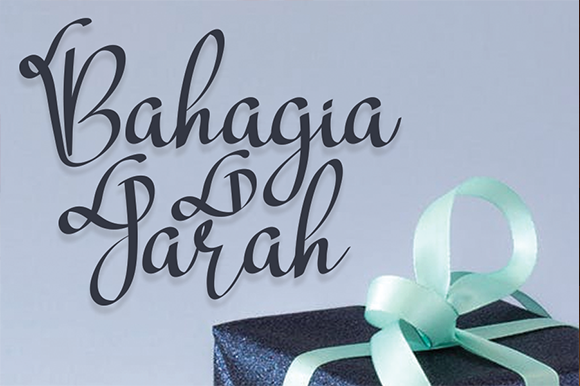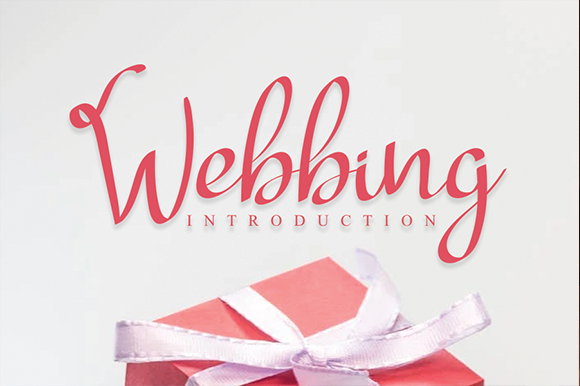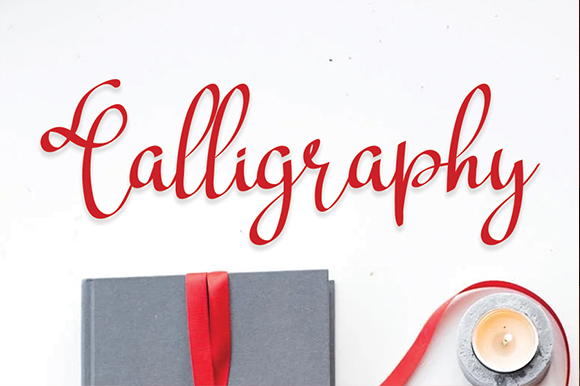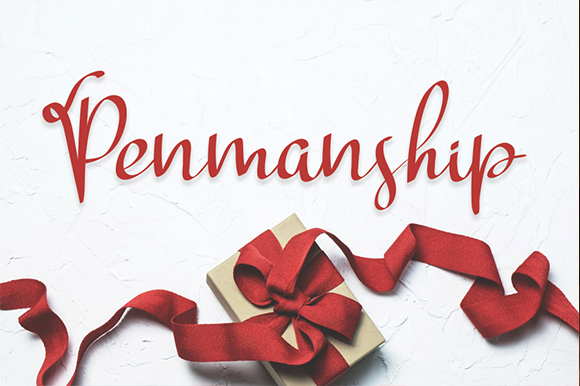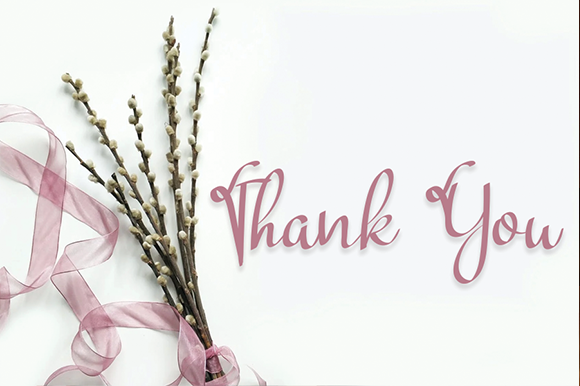
Bahagia Jarah Font
About Bahagia Jarah Font
Bahagia Jarah is a playful handwritten font. Clean and a little bit quirky, this font is the perfect fit for all of your logos, branding, social media, and crafty DIY projects.